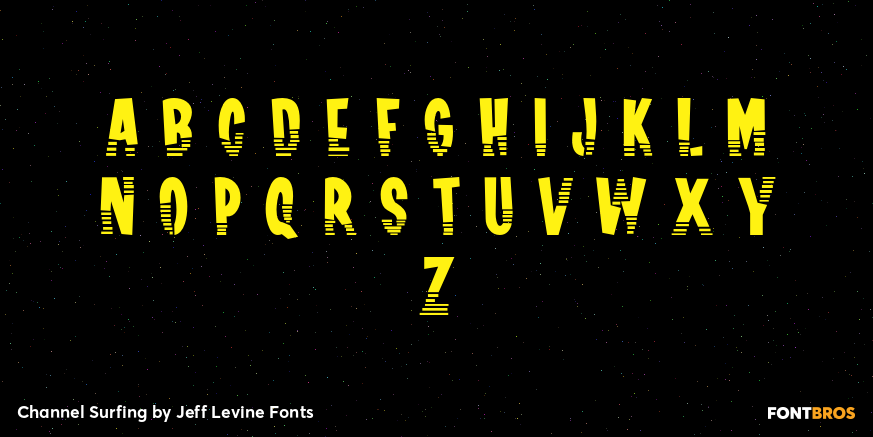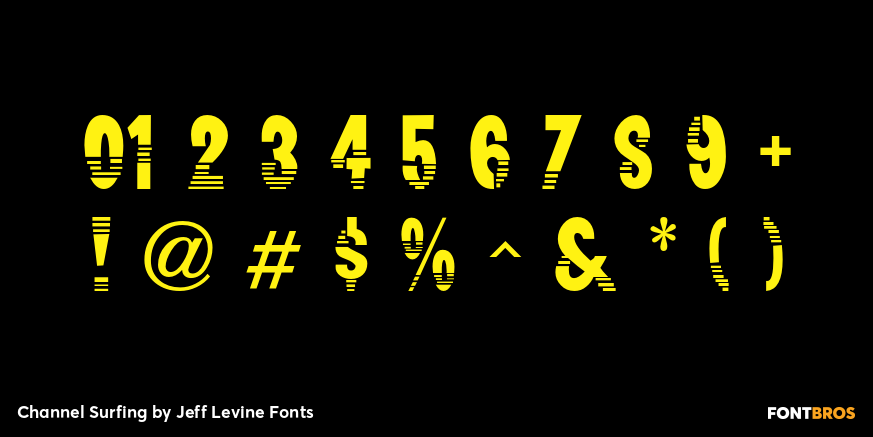
Channel Surfing
In 1999, Jeff Levine released a freeware font called 'Channel Tuning JL” – scanned from drawings made with a felt tip marker and designed as if the letters were breaking up 'due to poor reception” such as on pre-digital TV sets.
Over a decade later, Jeff has totally reworked the font – giving it cleaner lines, an extended character set and renaming it Channel Surfing JNL to set it apart from the roughly-drawn original.